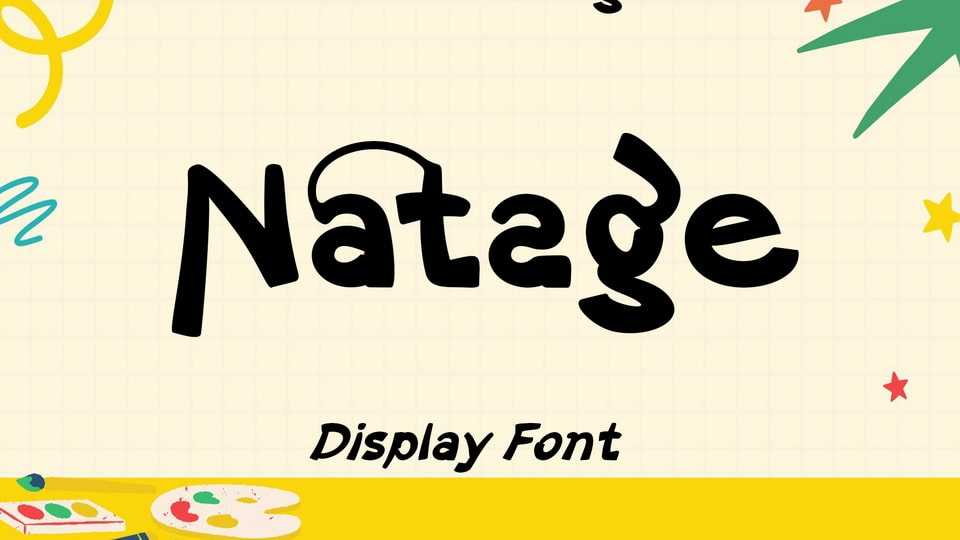
Download Natage font, a bold and playful display typeface designed to add energy, personality, and a touch of creativity to your projects.
Designer: NDNL Studio